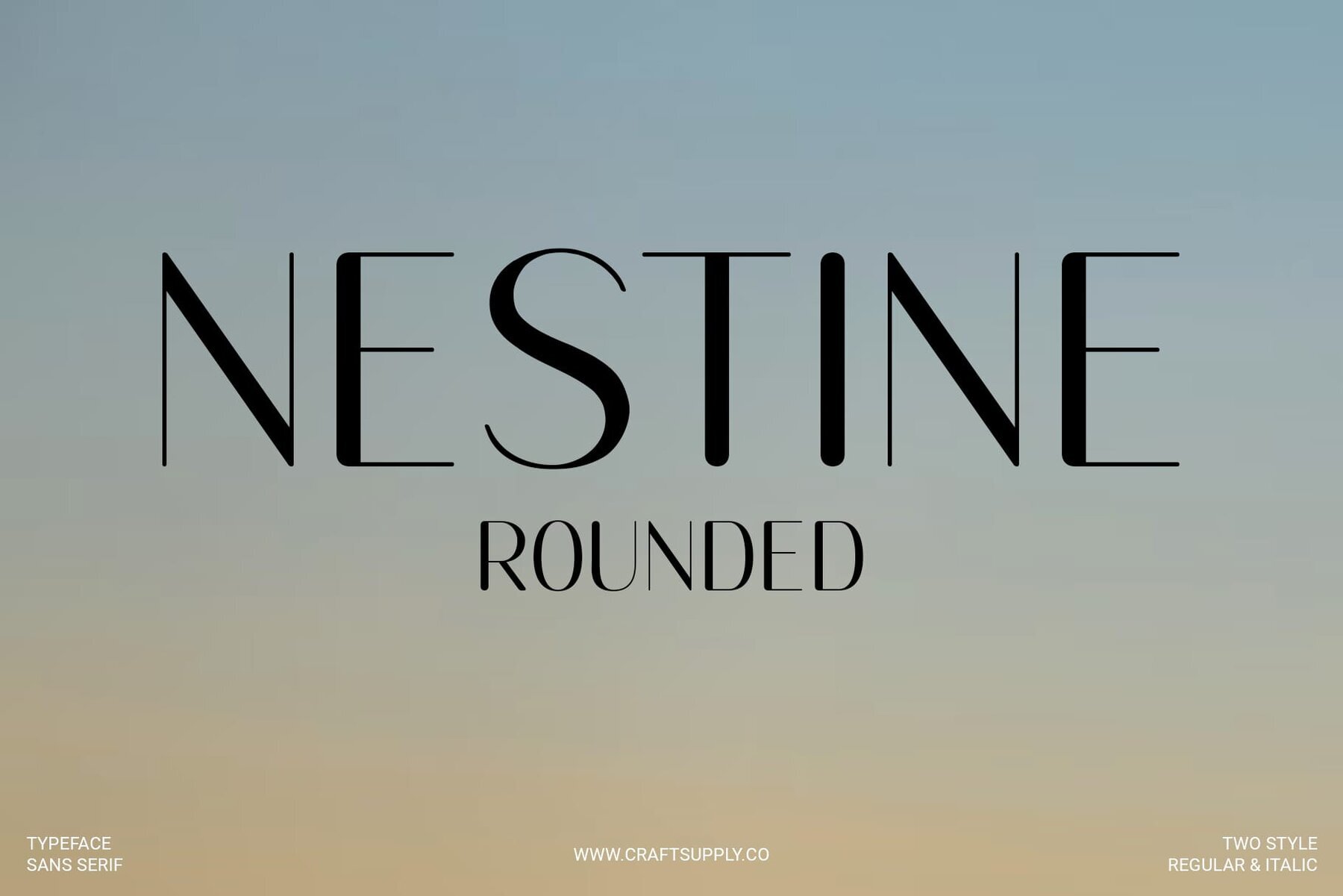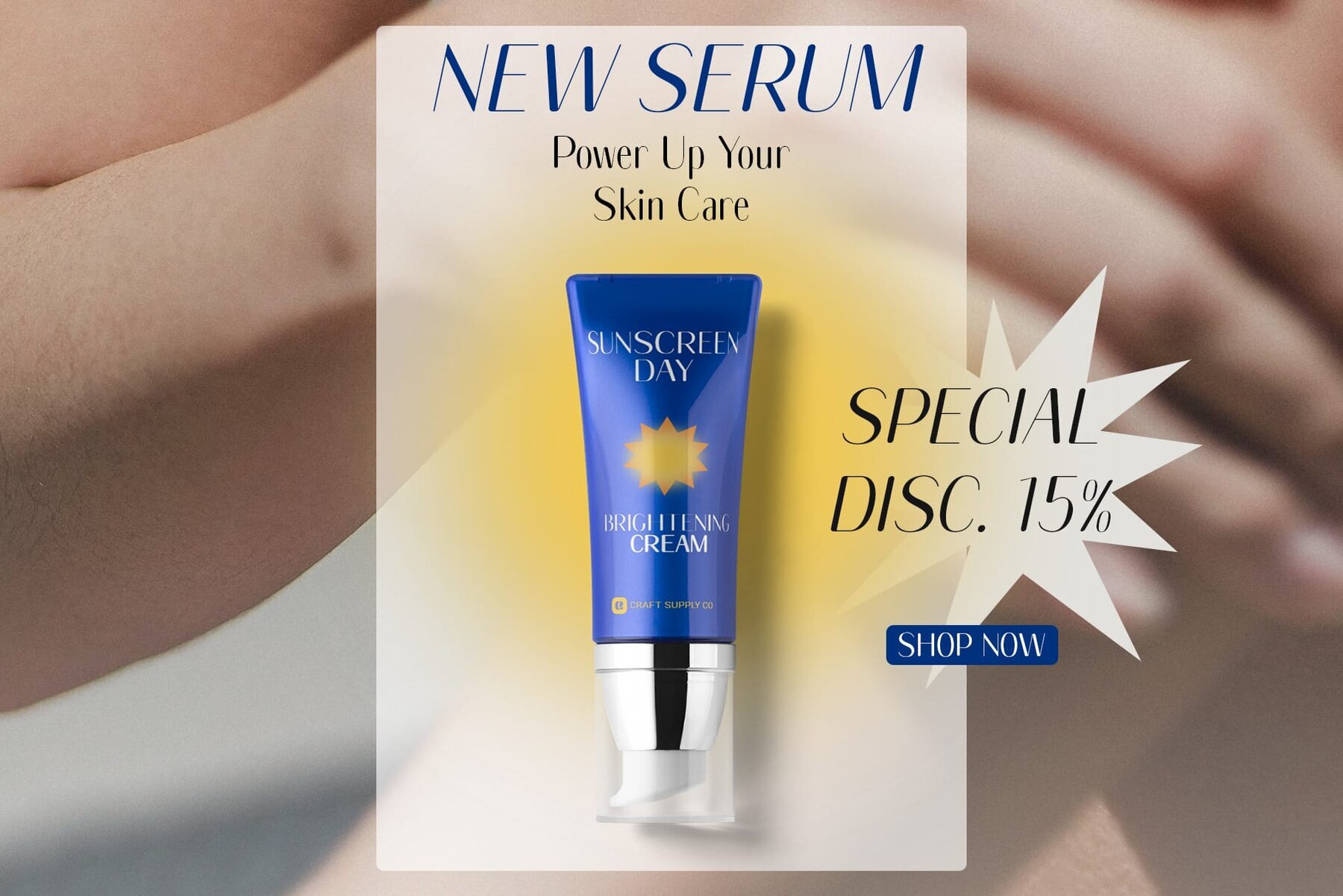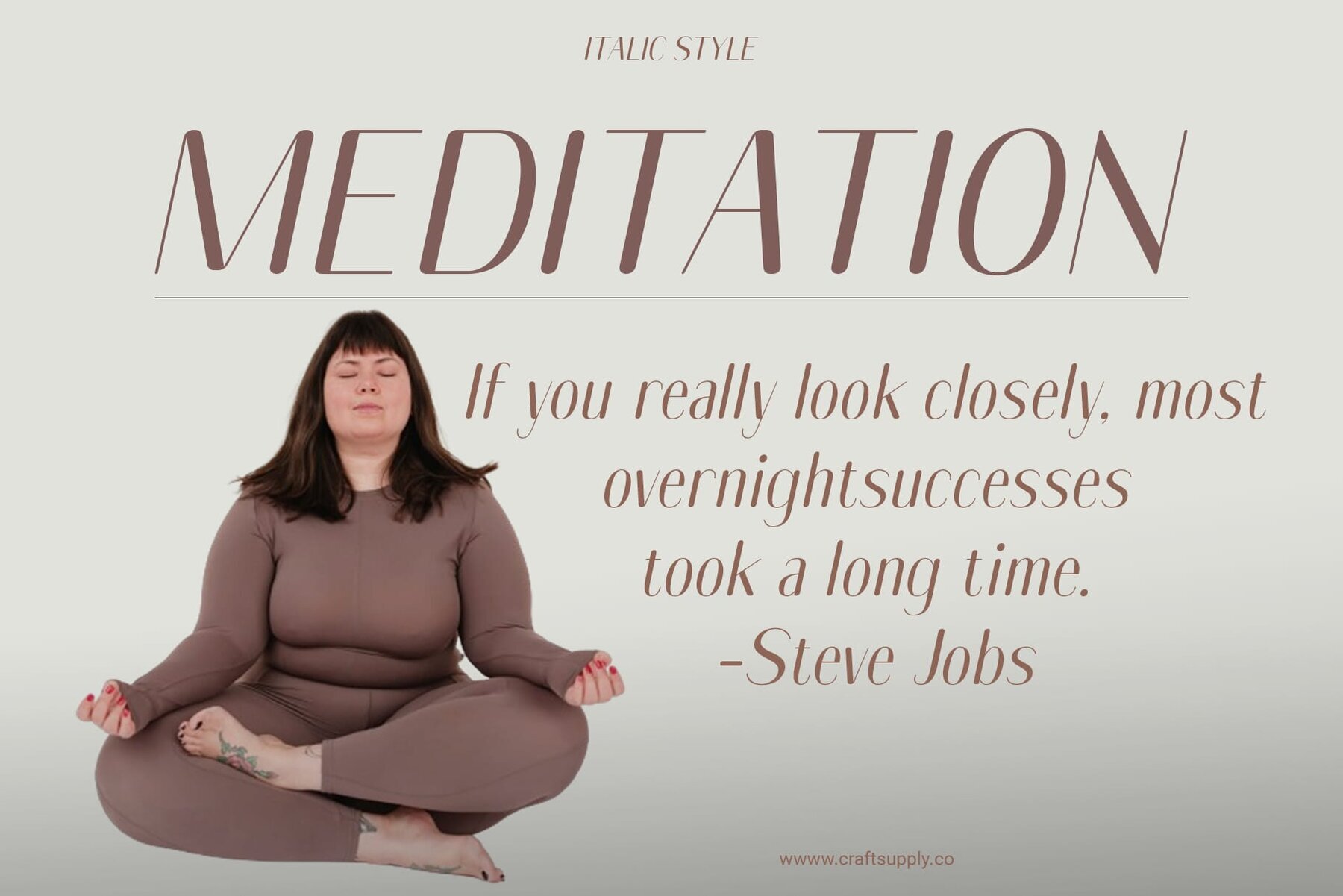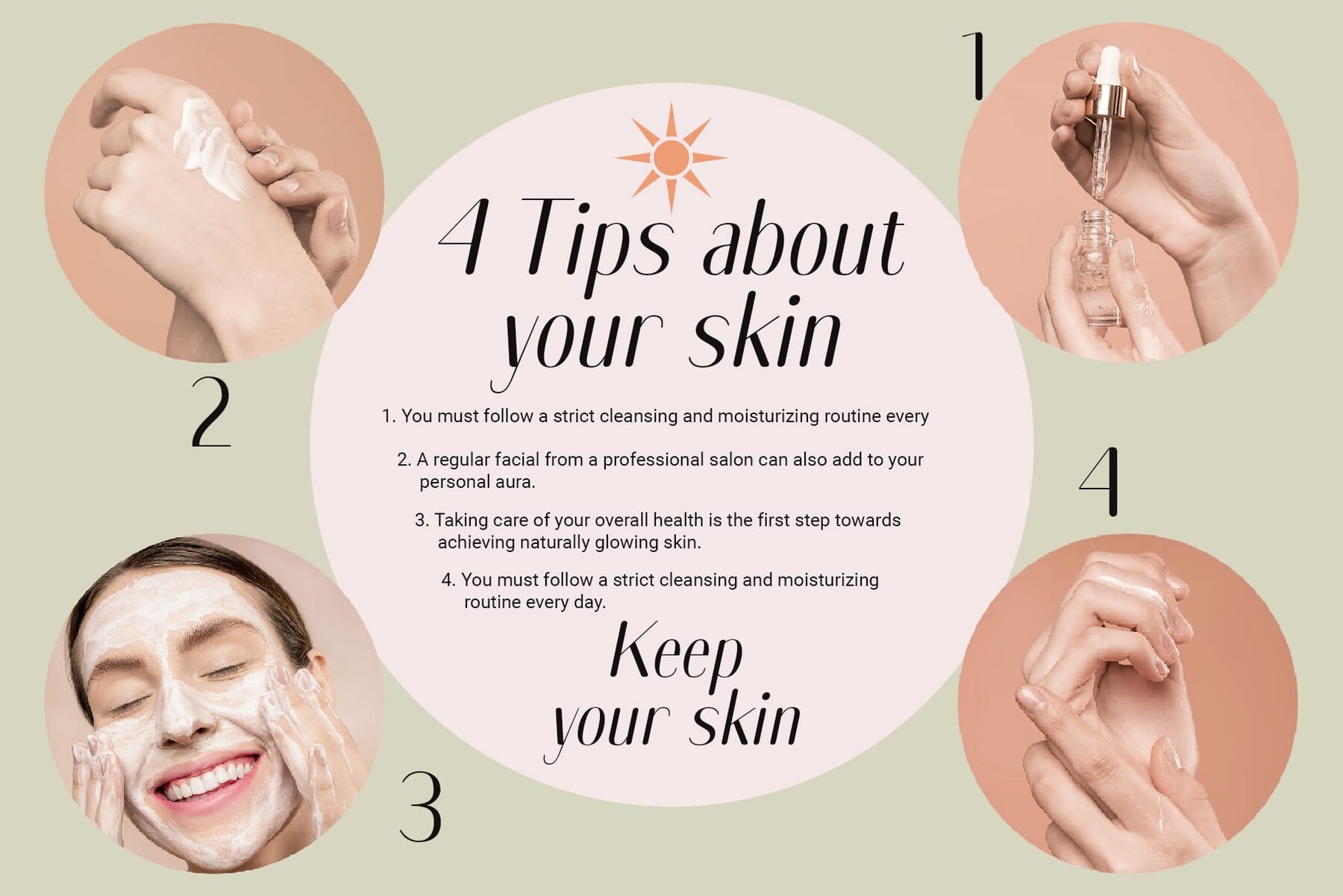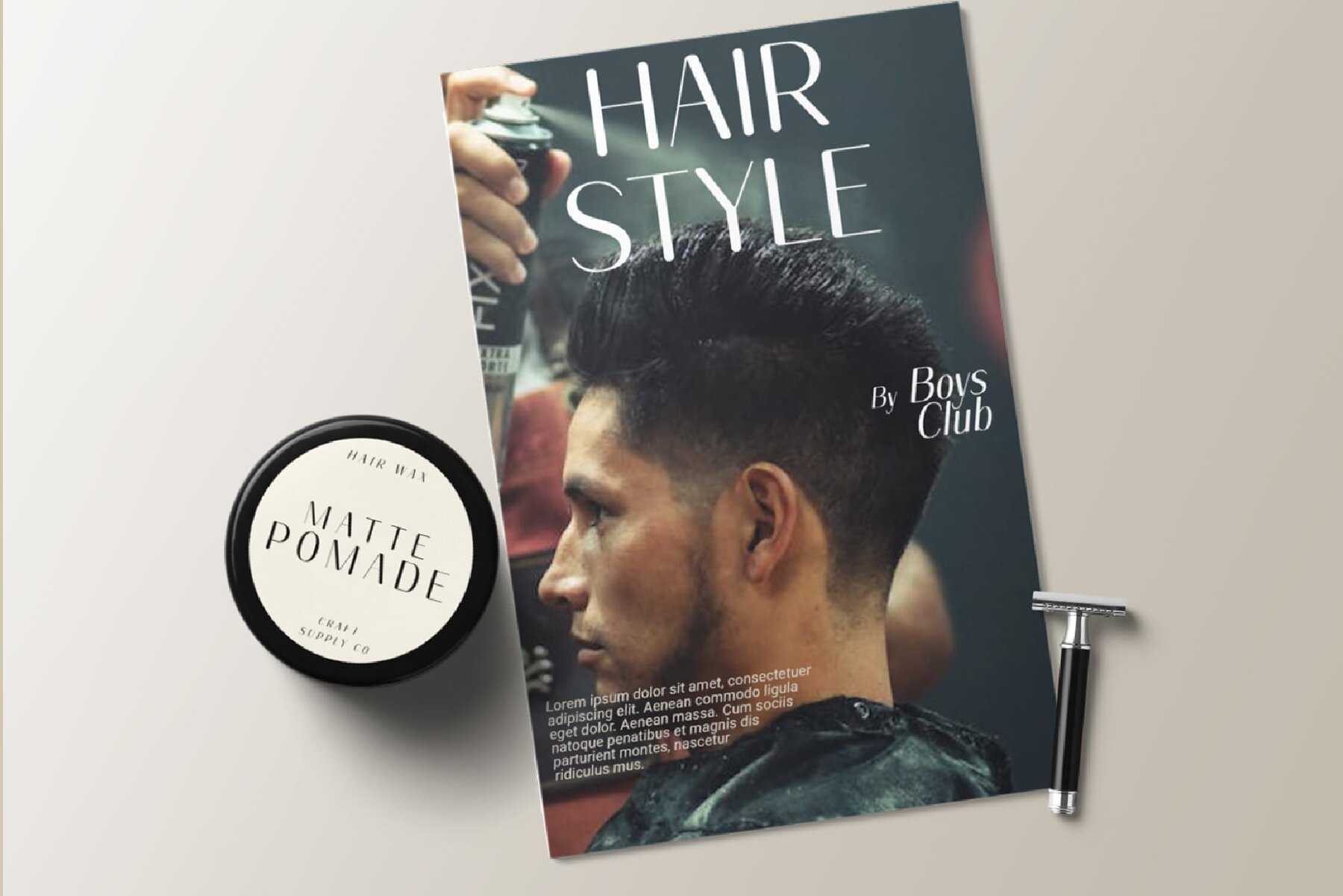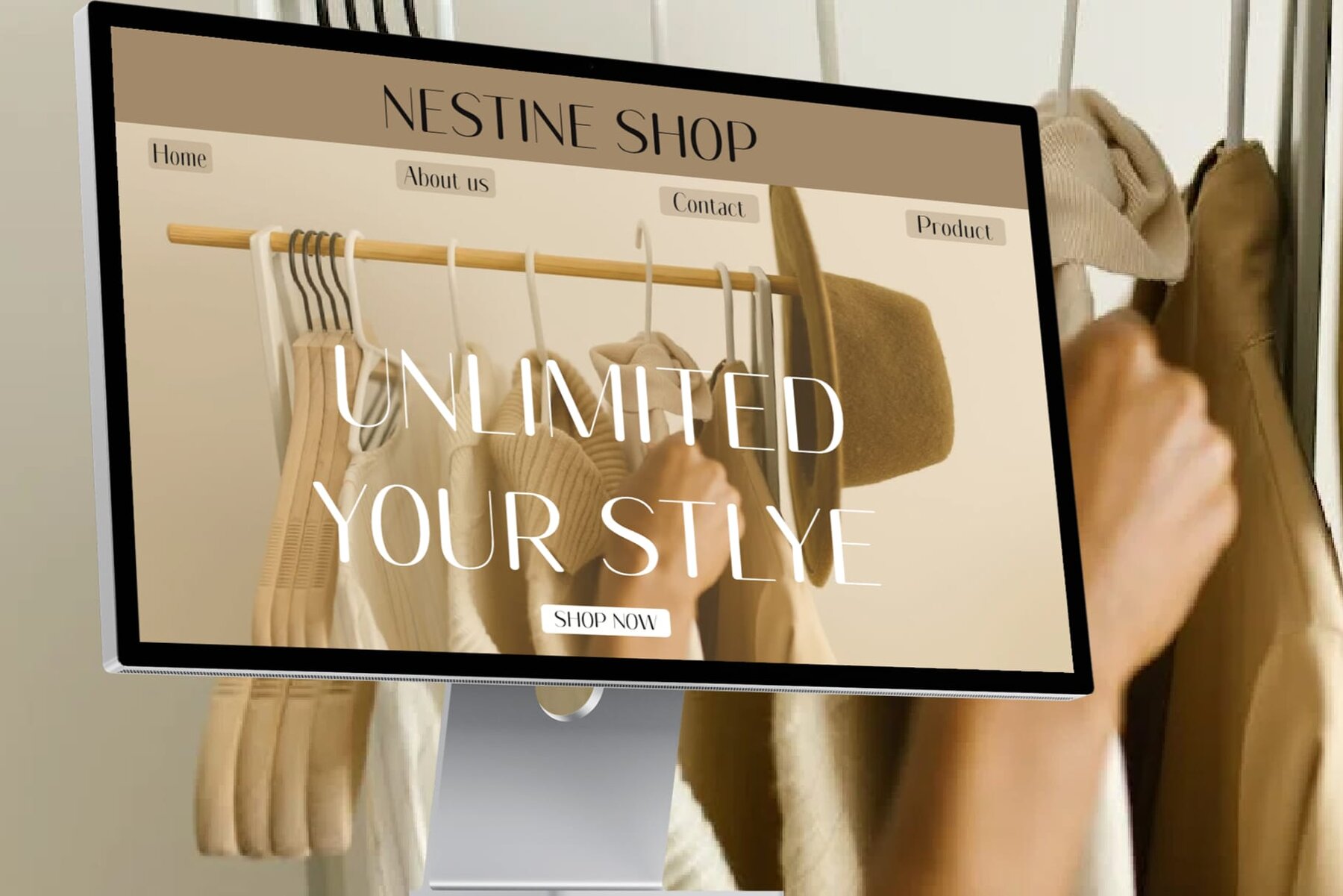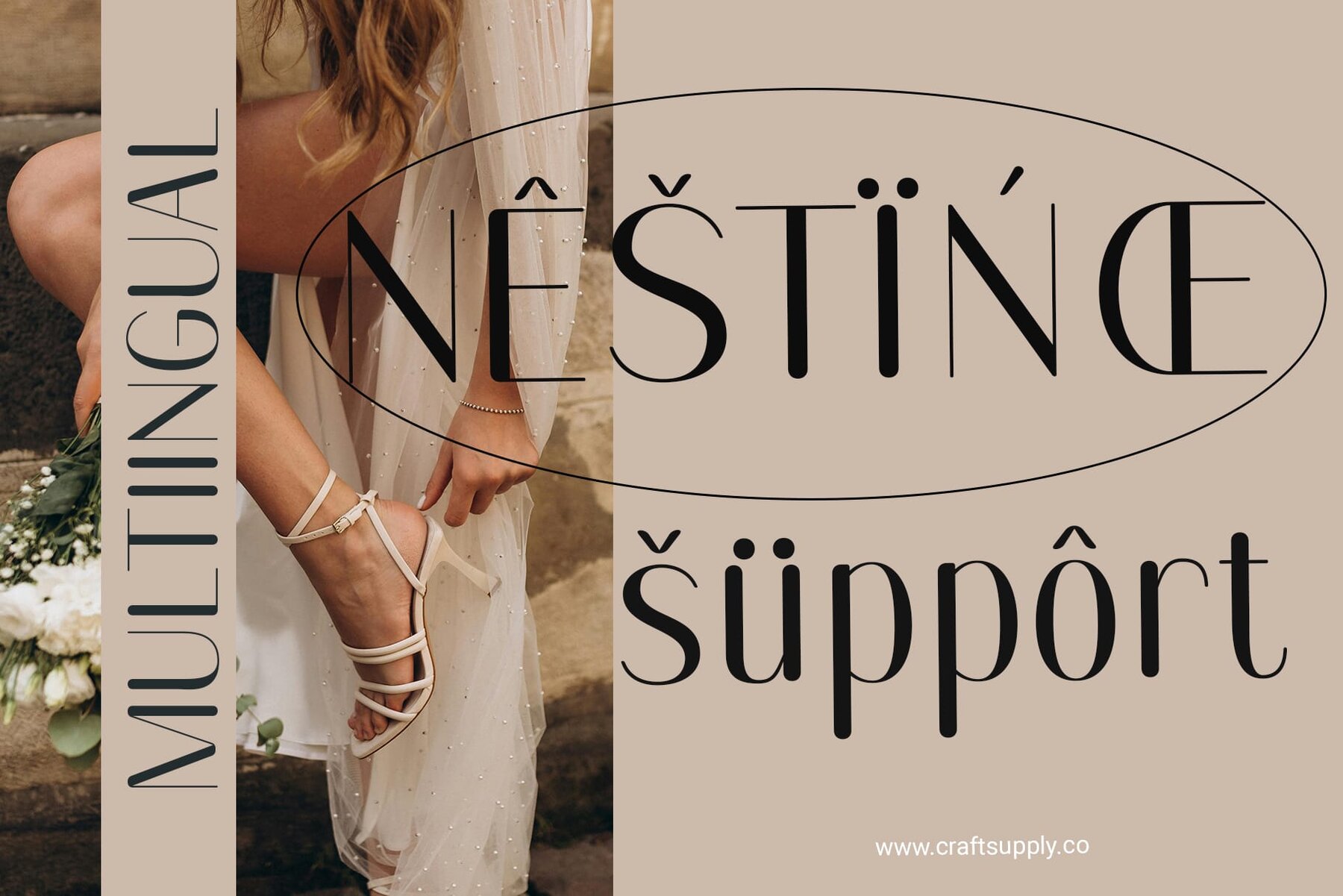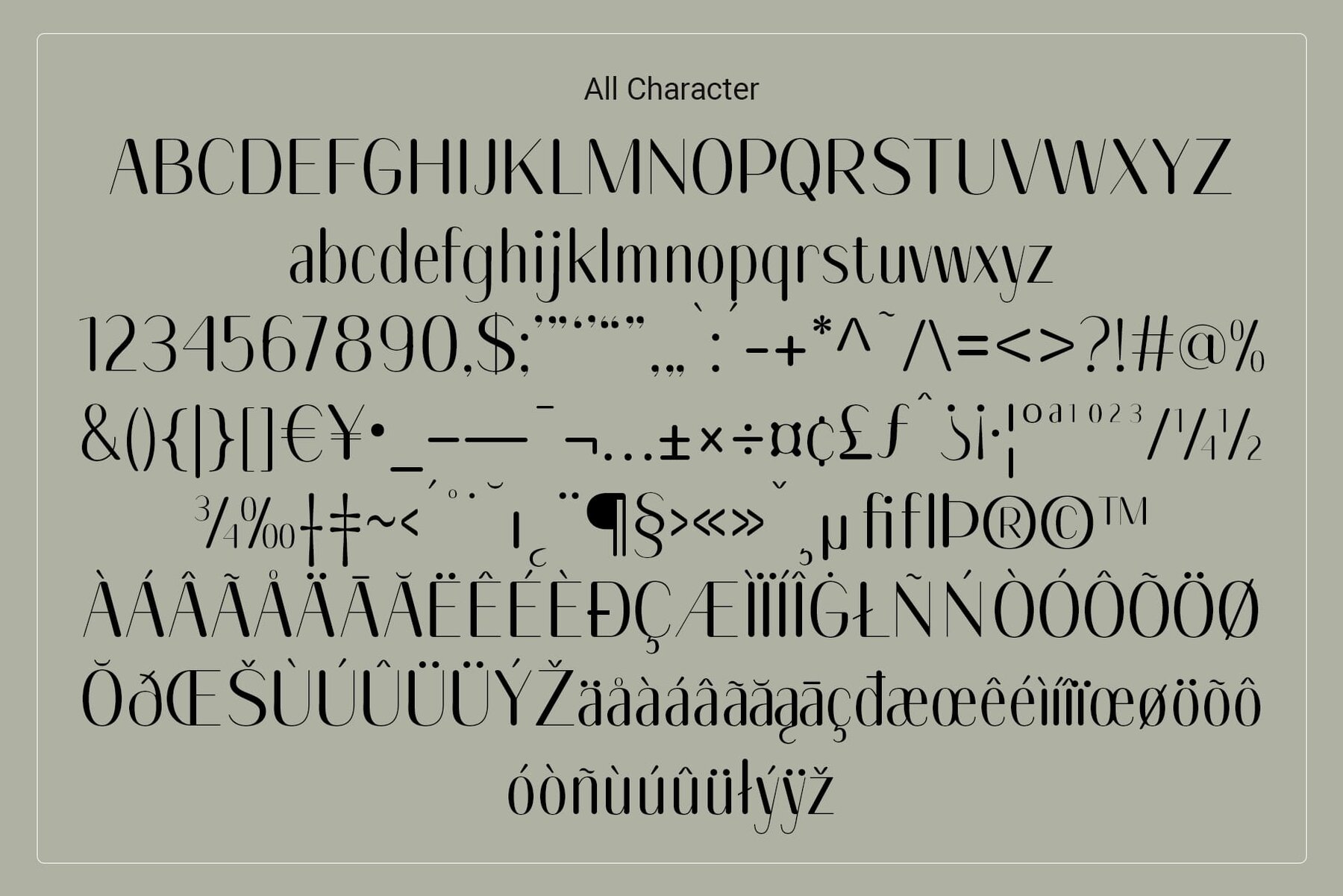
Nestine Rounded Font
Nestine Rounded boasts a sleek grotesque sans serif design that exudes professionalism and sophistication. Its clean lines and balanced proportions make it ideal for a wide range of corporate applications. The high contrast between thick and thin strokes adds visual interest and ensures readability across various contexts, making bold statements in any setting.
Designed with corporate needs in mind, this typeface is perfect for branding, advertising, and corporate communications. The rounded stem endings soften its overall look, adding a touch of warmth and approachability that sets it apart from traditional grotesque fonts. With uppercase and lowercase characters, numerals, punctuation, and multilingual support, Nestine Rounded is a versatile and modern choice, enhancing any corporate identity or marketing material.